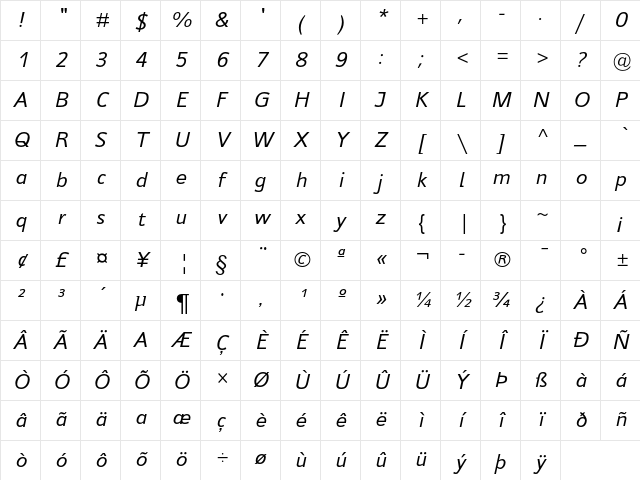
Jeunesse Sans Std Italic
Design Context for Jeunesse Sans Std
Jeunesse Sans Std is a composed and adaptable typeface that performs quietly and consistently across a wide range of design contexts. The slanted form adds forward momentum and visual energy.
Pro Tip: Use Jeunesse Sans Std for emphasis, pull quotes, and subheadings where its slanted energy can add rhythm to the layout.